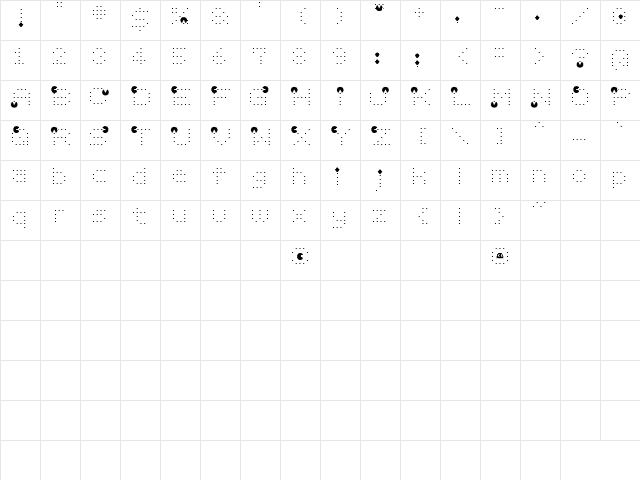
videobeast 80's Regular Font Preview
videobeast 80's Regular
Design Context for videobeast 80's Typeface
videobeast 80's is a composed and adaptable typeface that performs quietly and consistently across a wide range of design contexts.